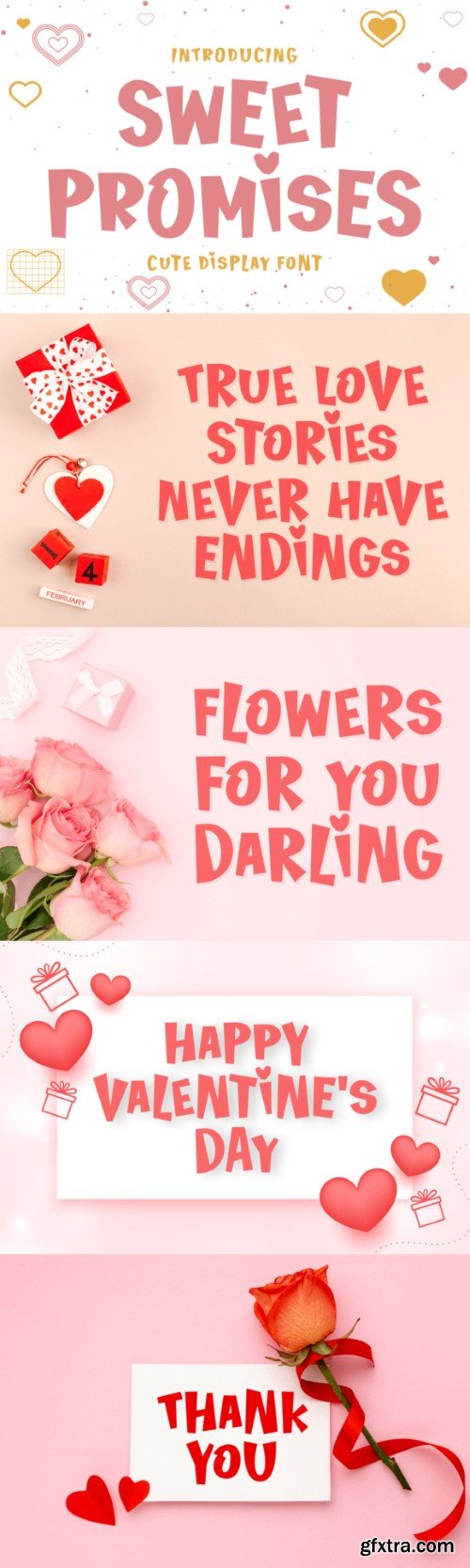
甜言蜜语字体
Sweet Promises is a delightful display font that adds a touch of sweetness to your projects. With a charming and playful style, it effortlessly captures a warm and inviting feel. Ideal for creating eye-catching titles, quotes, or any design that needs a sprinkle of charm, Sweet Promises is your go-to choice for a font that promises to make your text as sweet as can be.